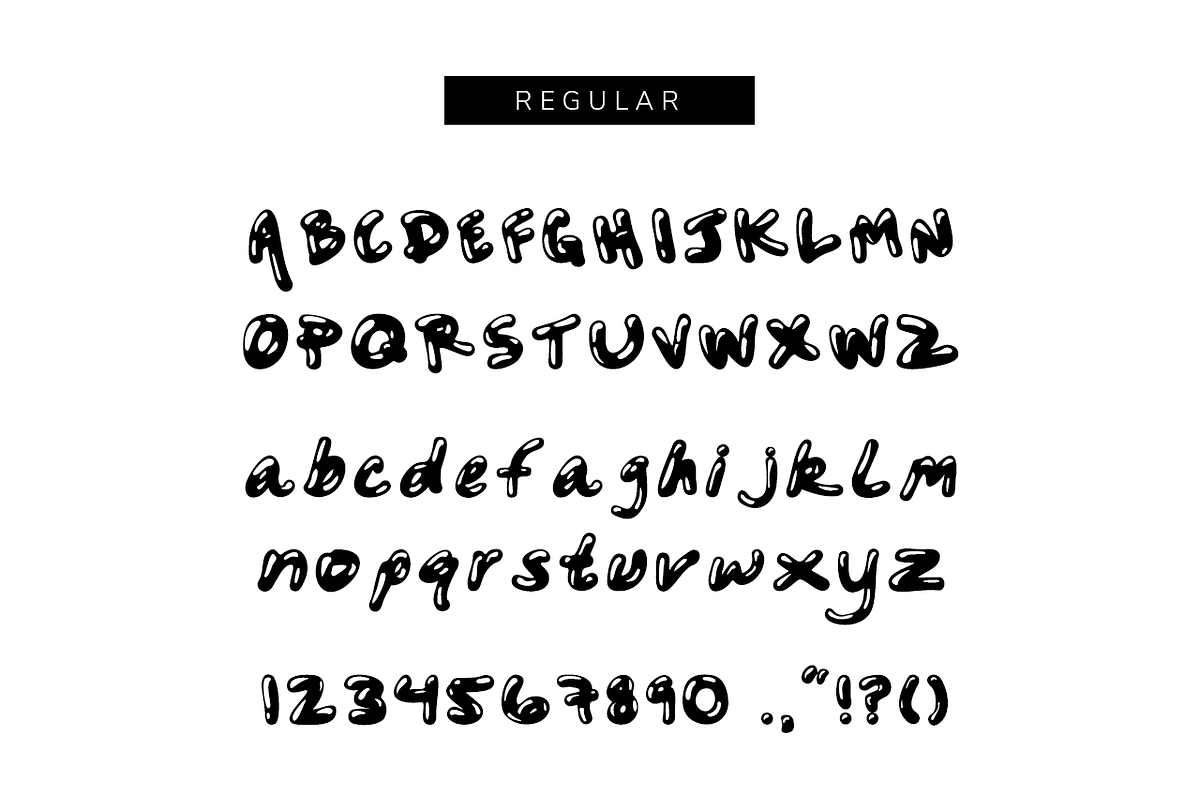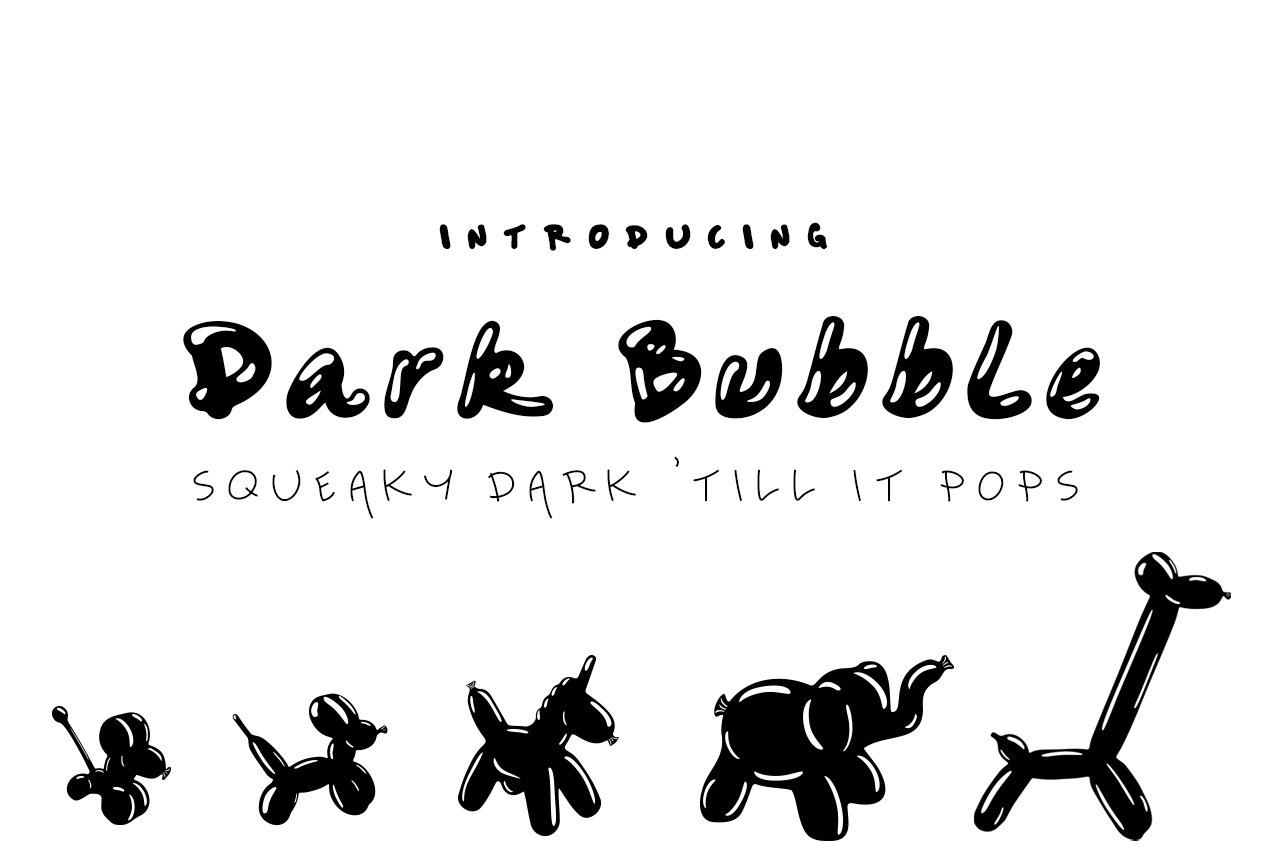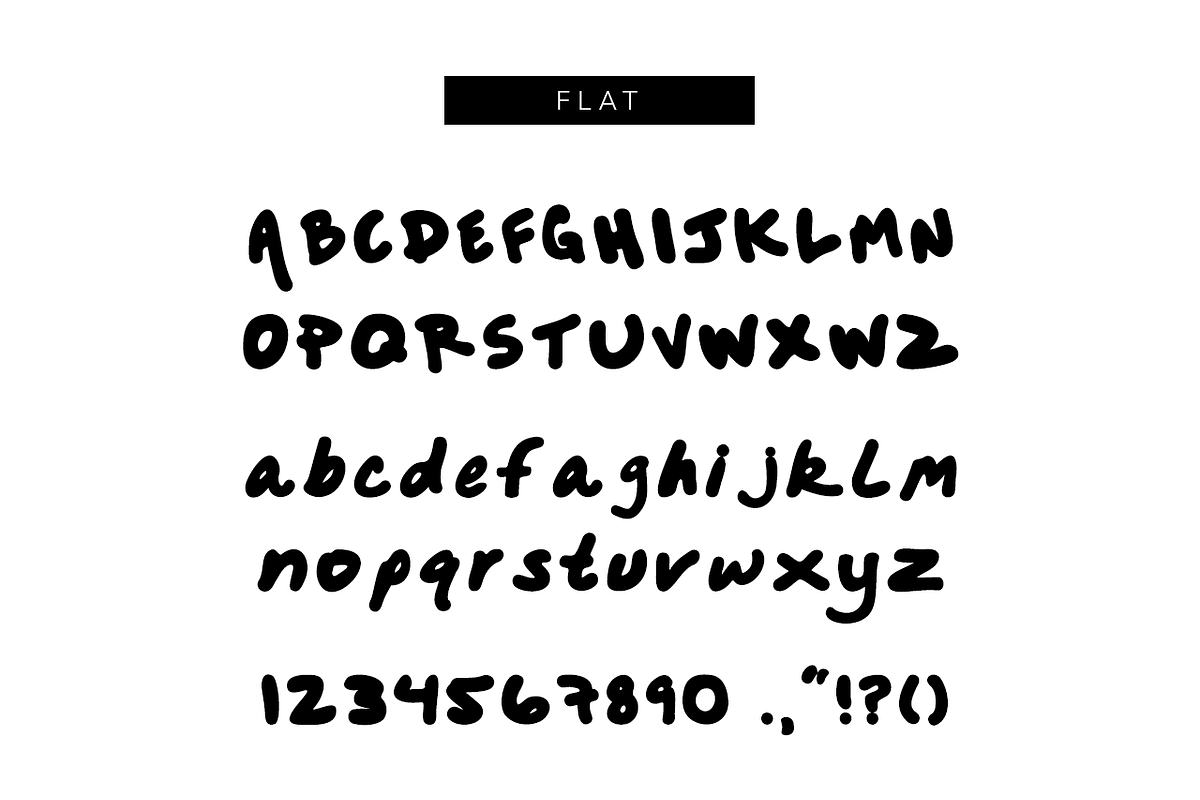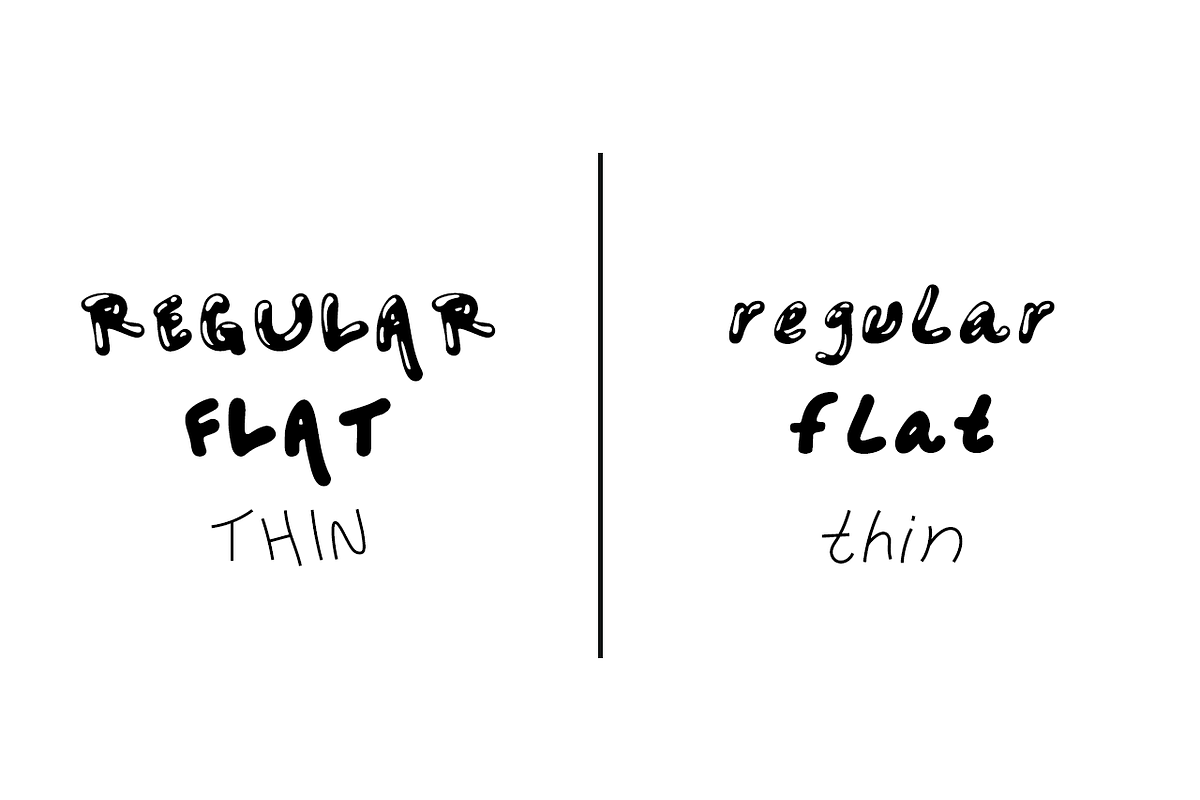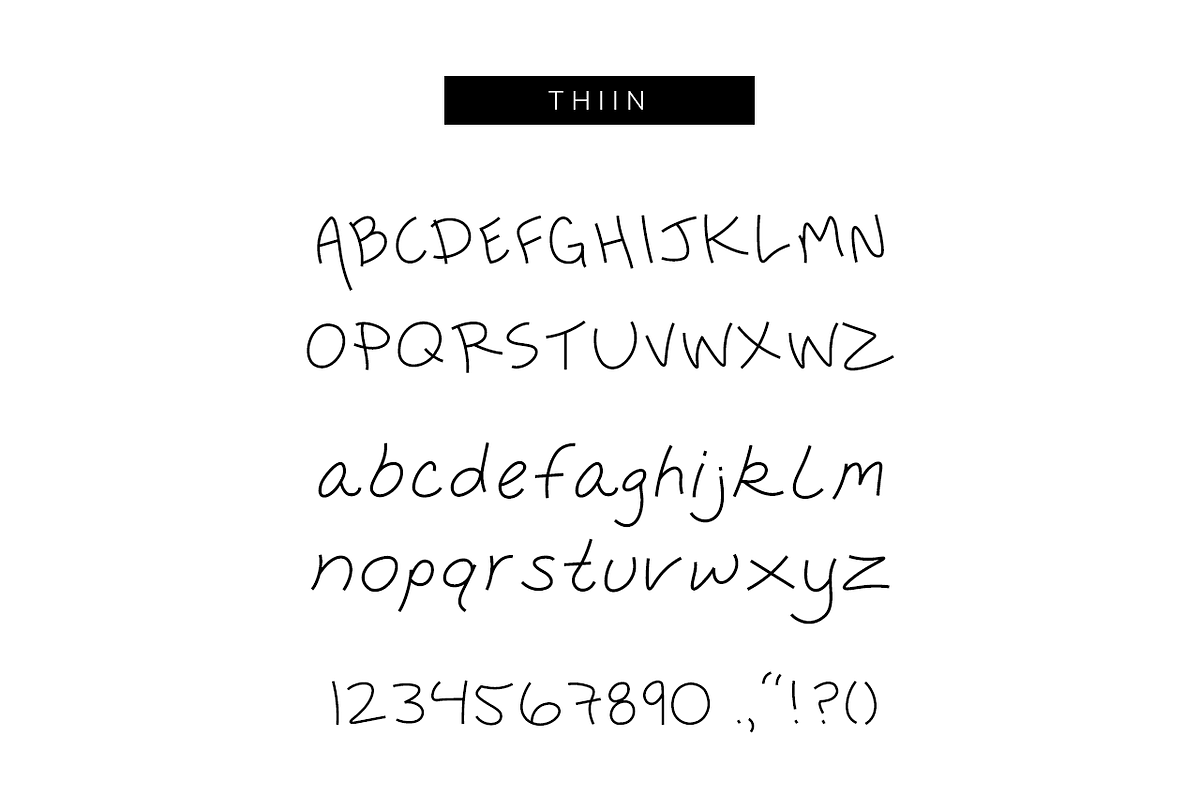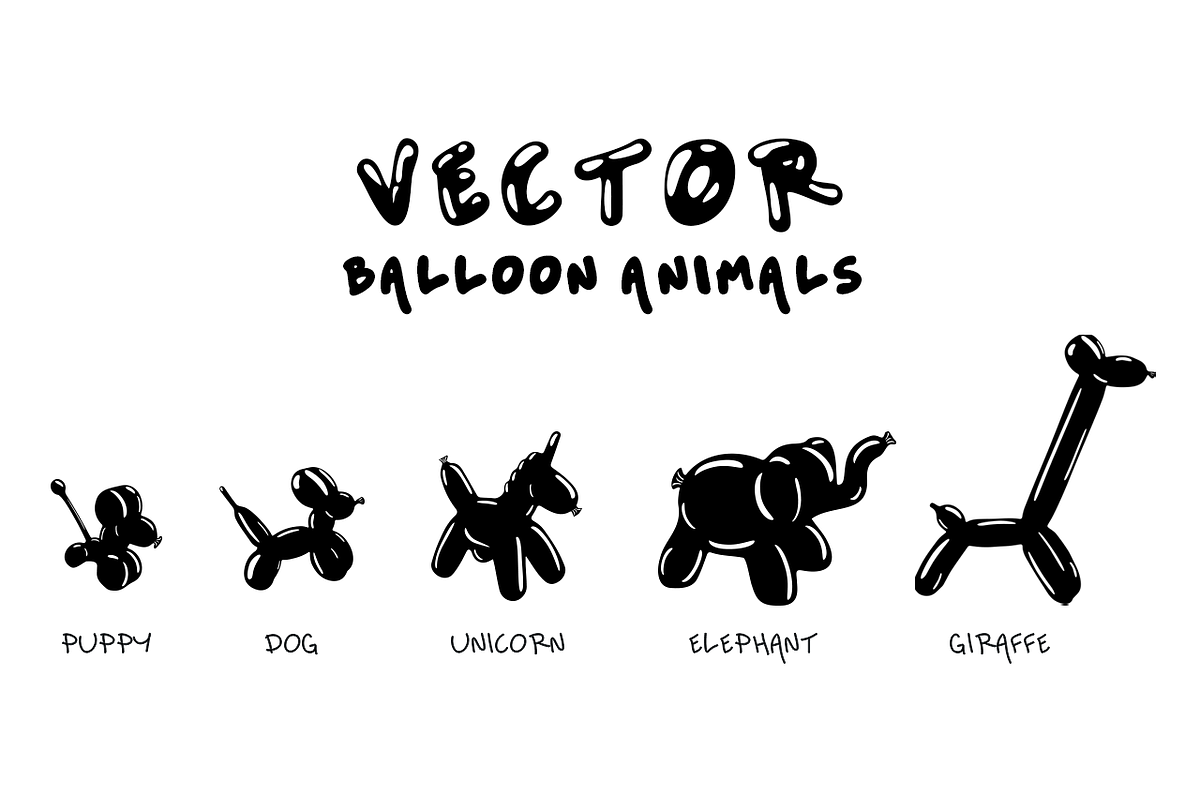
Dark Bubble Font
Dark Bubble Display Font
Font includes upper and lowercase versions. To be used for logos, type, headlines, clothing, covers, & posters.
Vector Balloon Animals:
Comes with feature :
Uppercase Lowercase Number, Punctuation And Symbols